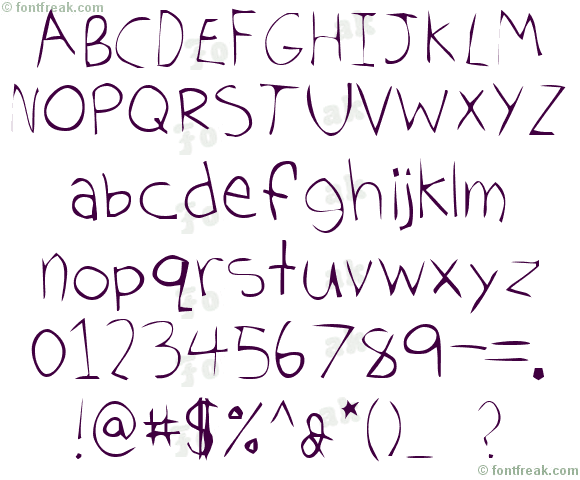
Tom's Handwriting
Tom's Handwriting by Divide By Zero is a charming handwritten font that captures the essence of personal touch and creativity. This font falls into the script category and showcases unique, playful letterforms that resemble natural handwriting. Its stroke weight varies, providing a dynamic quality, while the lack of uniform spacing gives it an organic feel that makes it perfect for conveying warmth and personality in your design projects. The letters feature gentle curves and whimsical elements, adding a delightful character that sets this font apart from more traditional typefaces.
Ideal for a variety of applications, Tom's Handwriting is particularly suited for wedding invitations, where its informal charm can evoke a sense of intimacy and elegance. It also works wonderfully for greeting cards, allowing users to convey heartfelt messages in a visually appealing manner. Additionally, this font can enhance restaurant menus, giving them a cozy, inviting atmosphere. Small business owners can utilize it for branding materials, such as promotional flyers or social media graphics, to create a memorable and approachable identity. Content creators looking to add a personal touch to their projects will find this font to be an excellent choice for blogs or online articles.